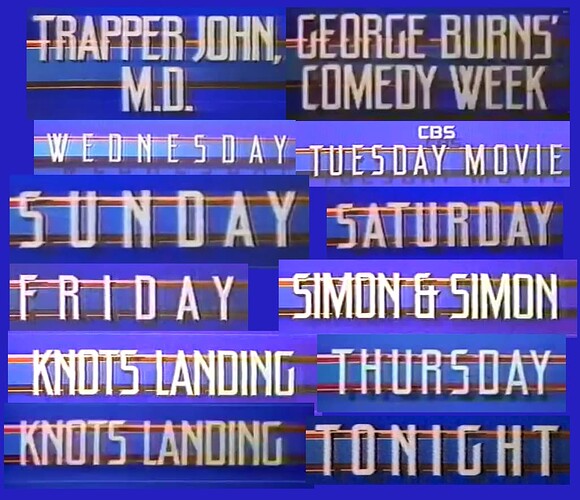
So, the font I’ve includes from CBS network promos from 1985 evades me. I’ve found similar fonts (like Go Home JNL, College Nouveau JNL, Steelfish, etc) but none match 100%.
The most telling parts of the font are:
The W middle stems cross to form an X in the middle.
The N crossbar does not touch the bottom of the final stem.
The top of S, E and possibly other letters are cut in a diagonal instead of ending flat.
I’ve researched fonts from the 60s/70s/80s, chyron fonts, tried various automated engines like the FONT IDENTIFIER on this site & WhatTheFont. No luck.